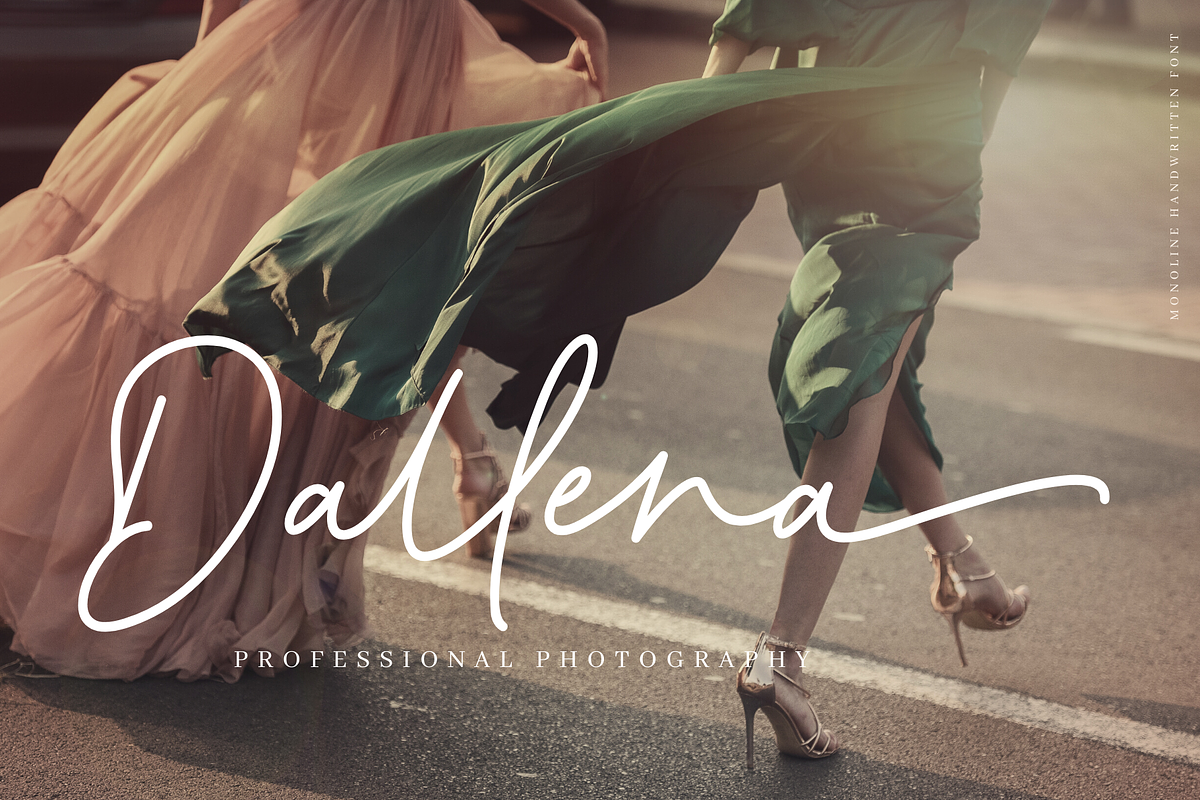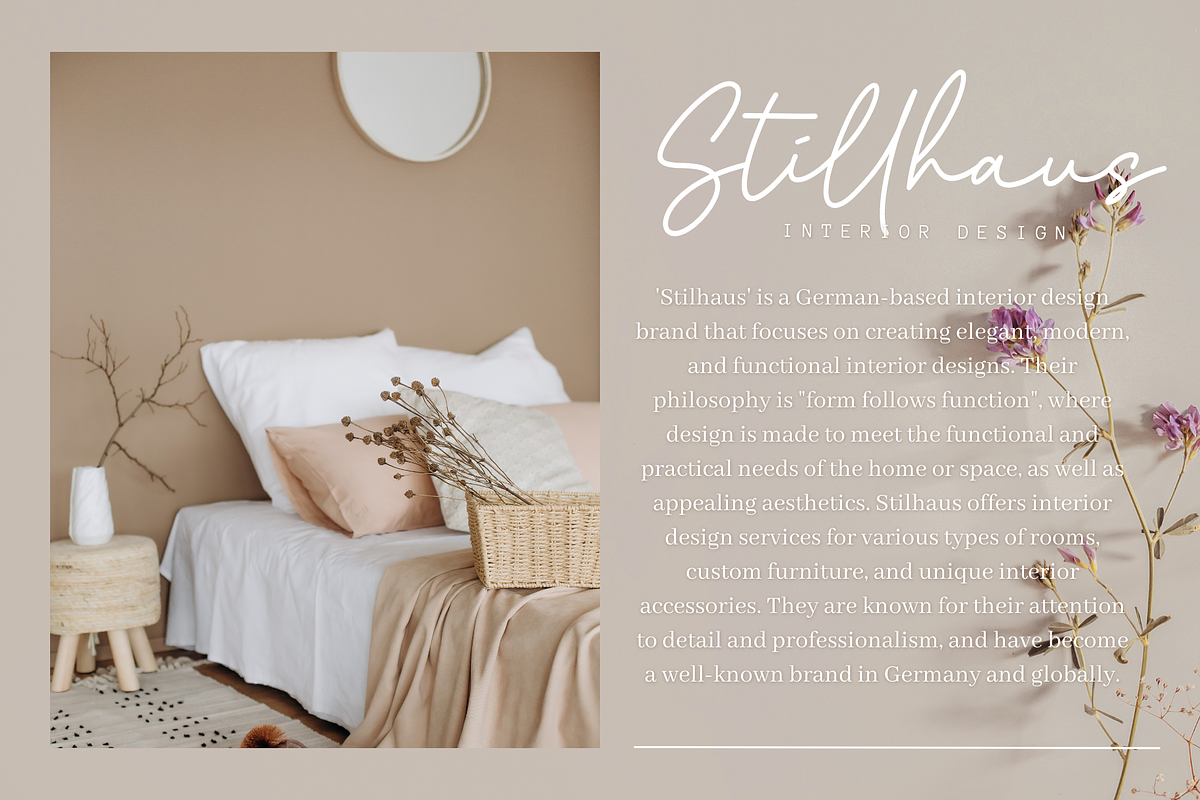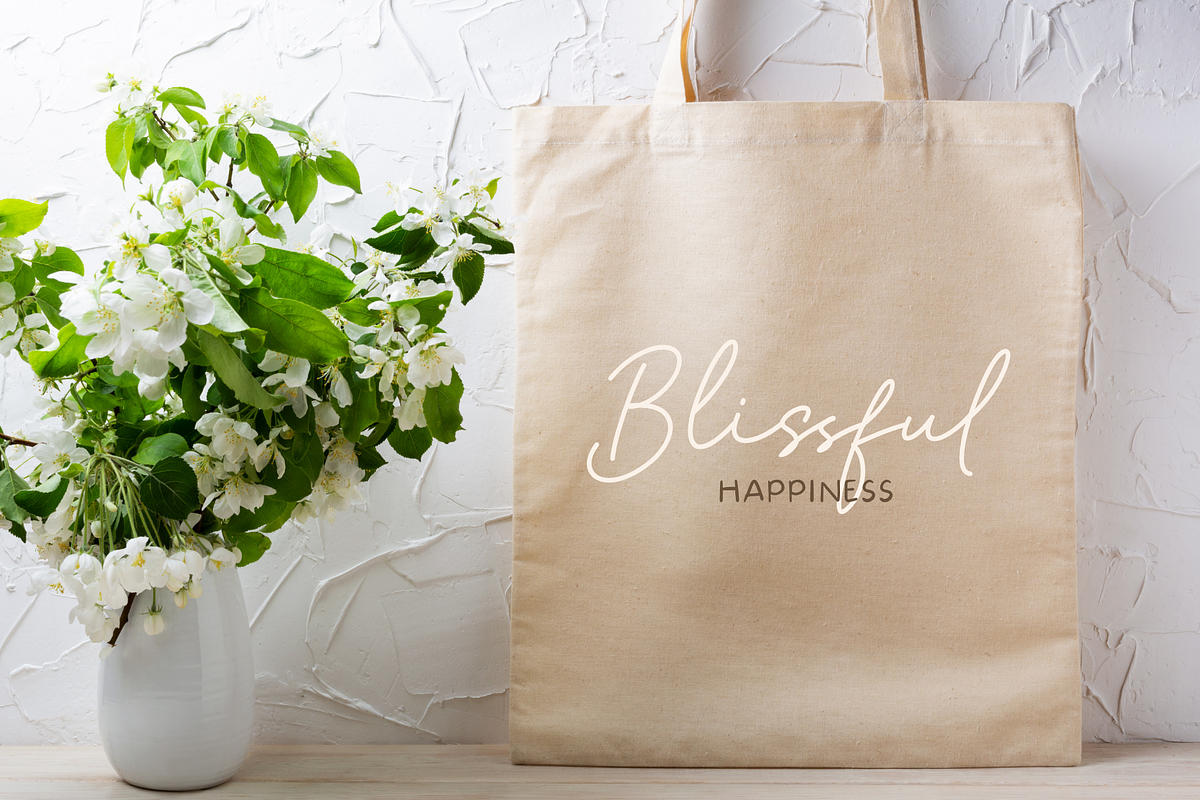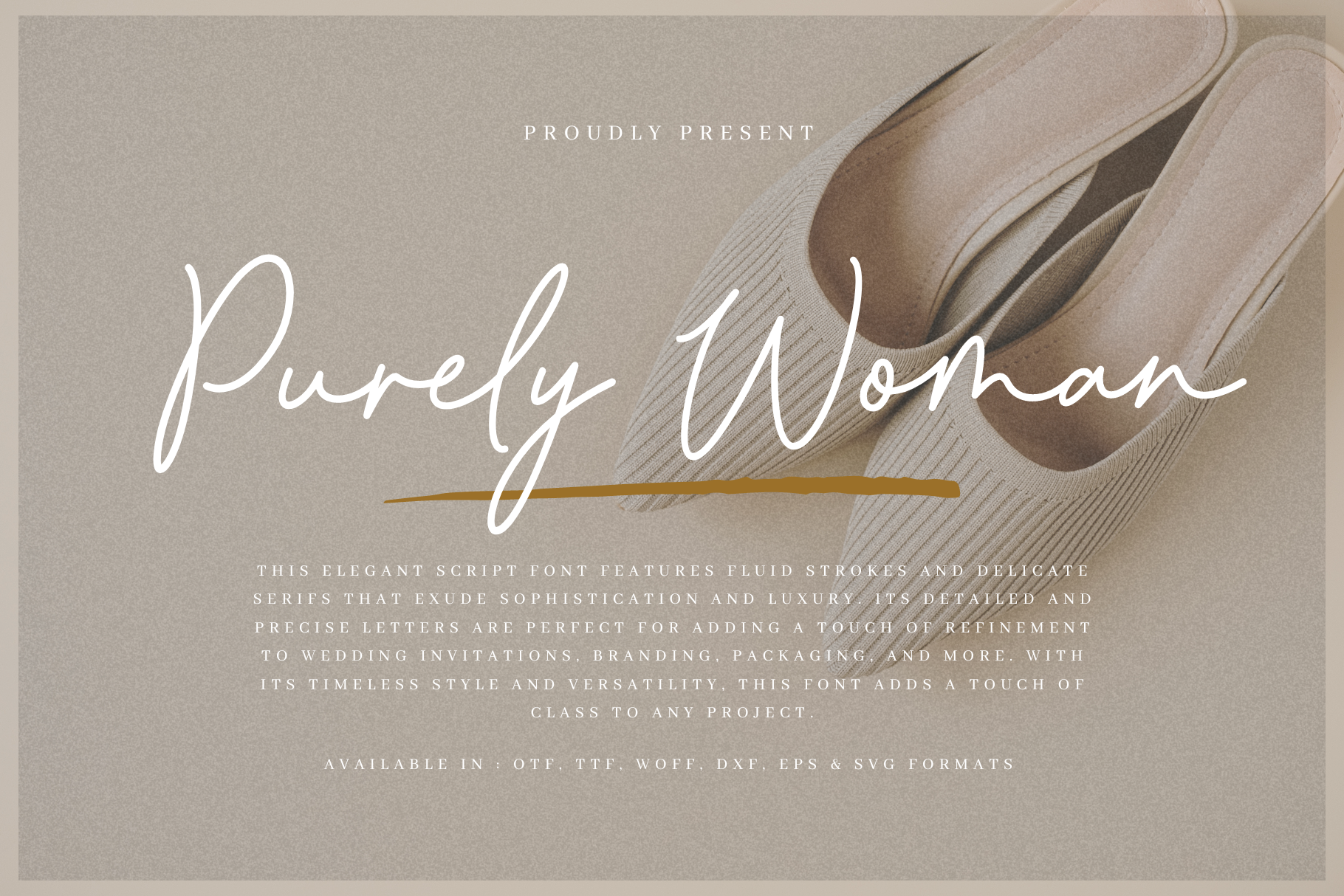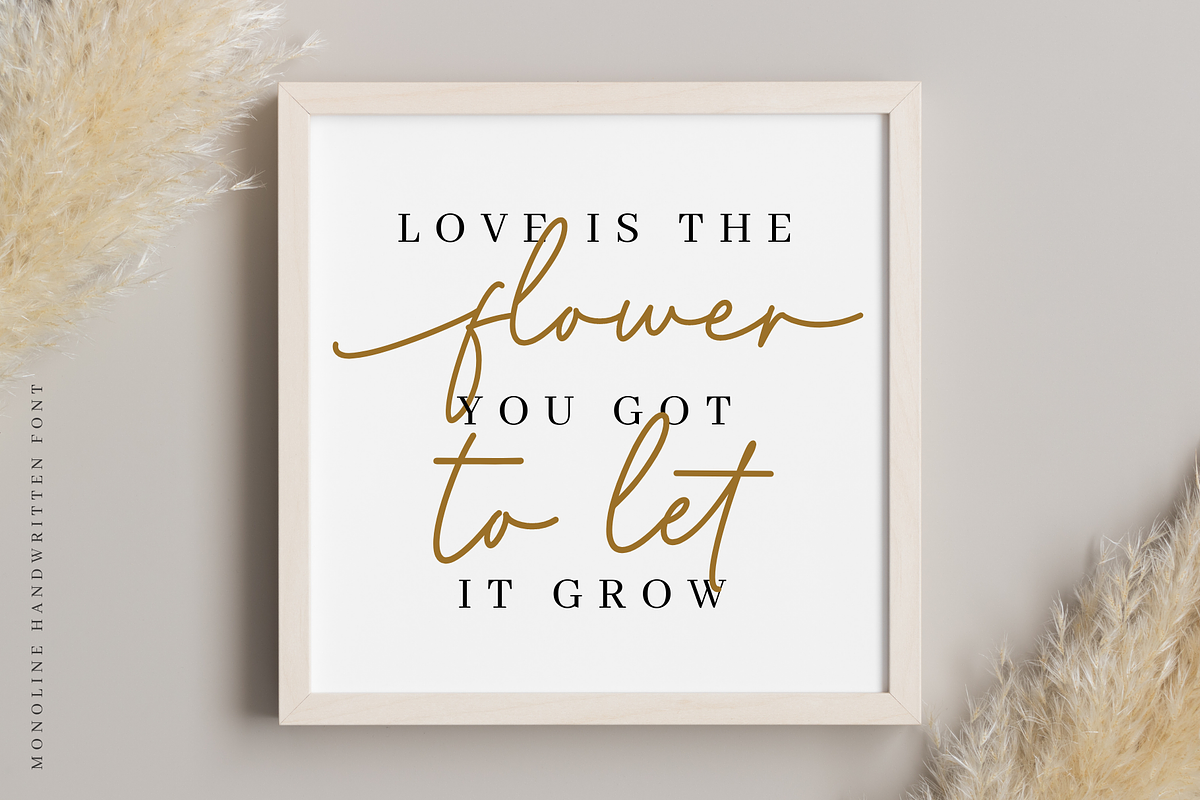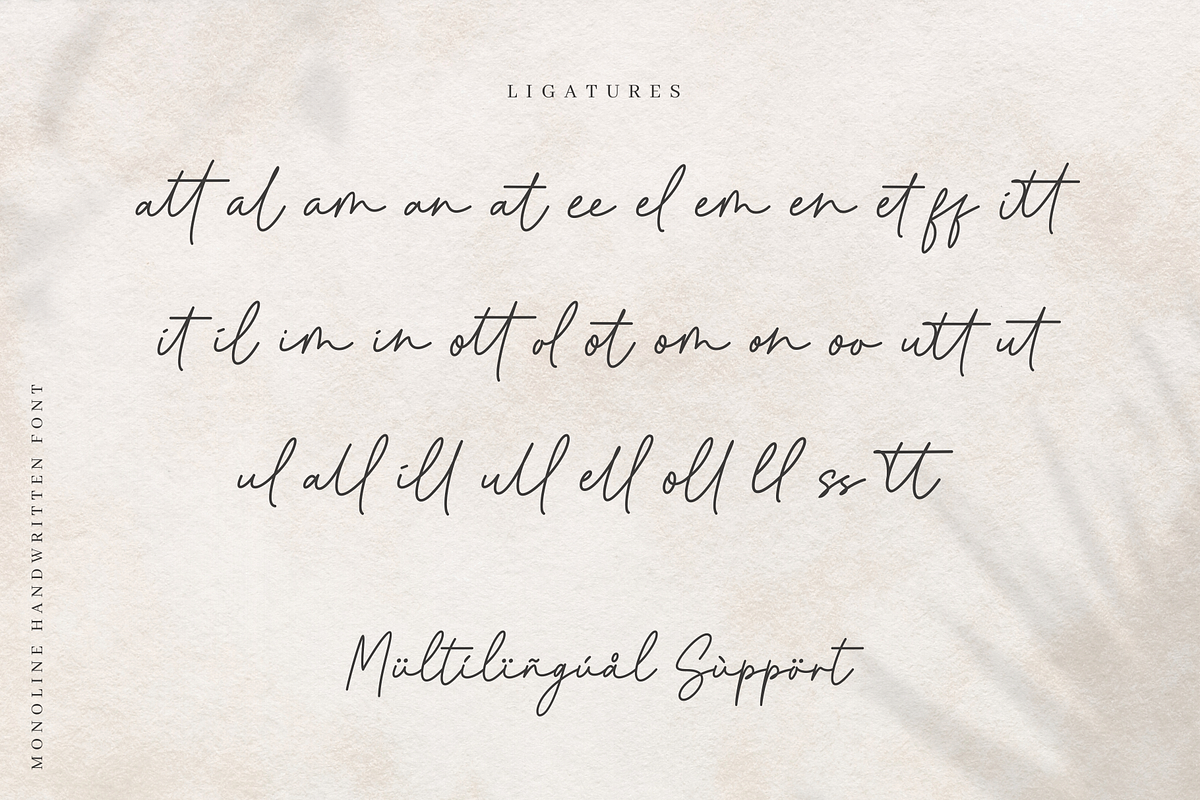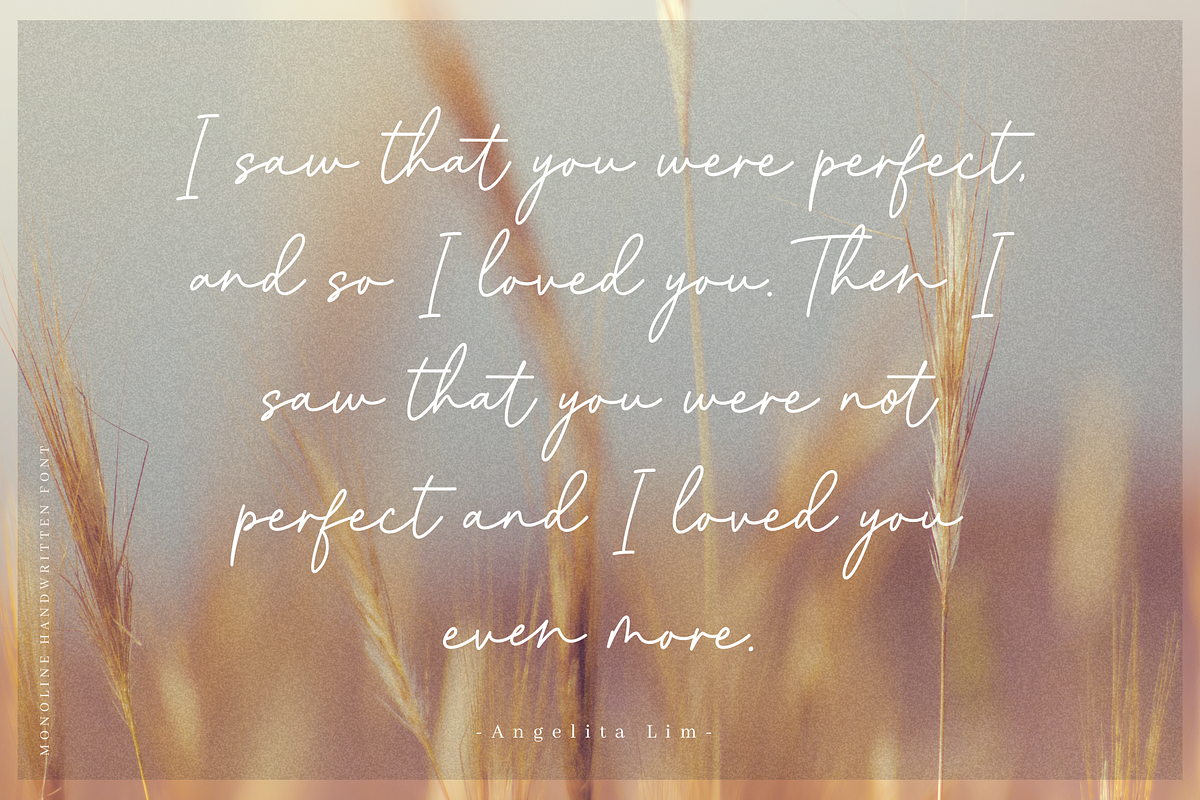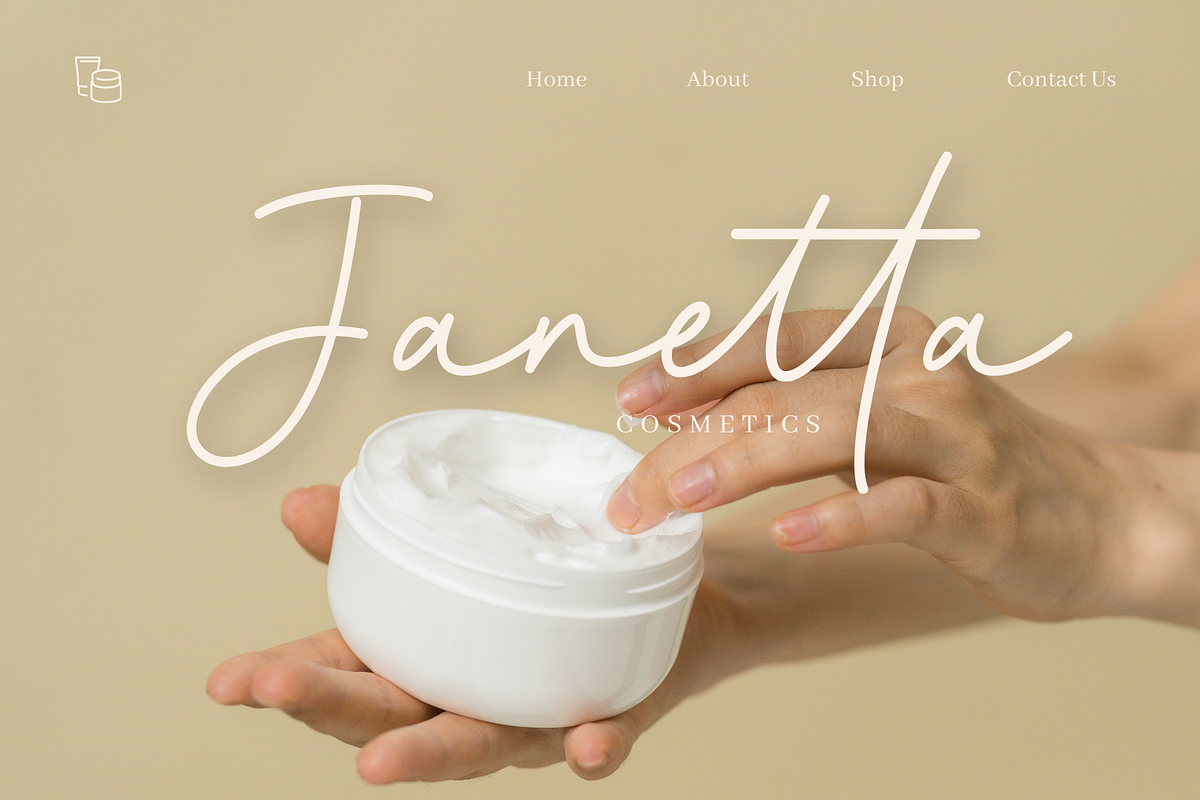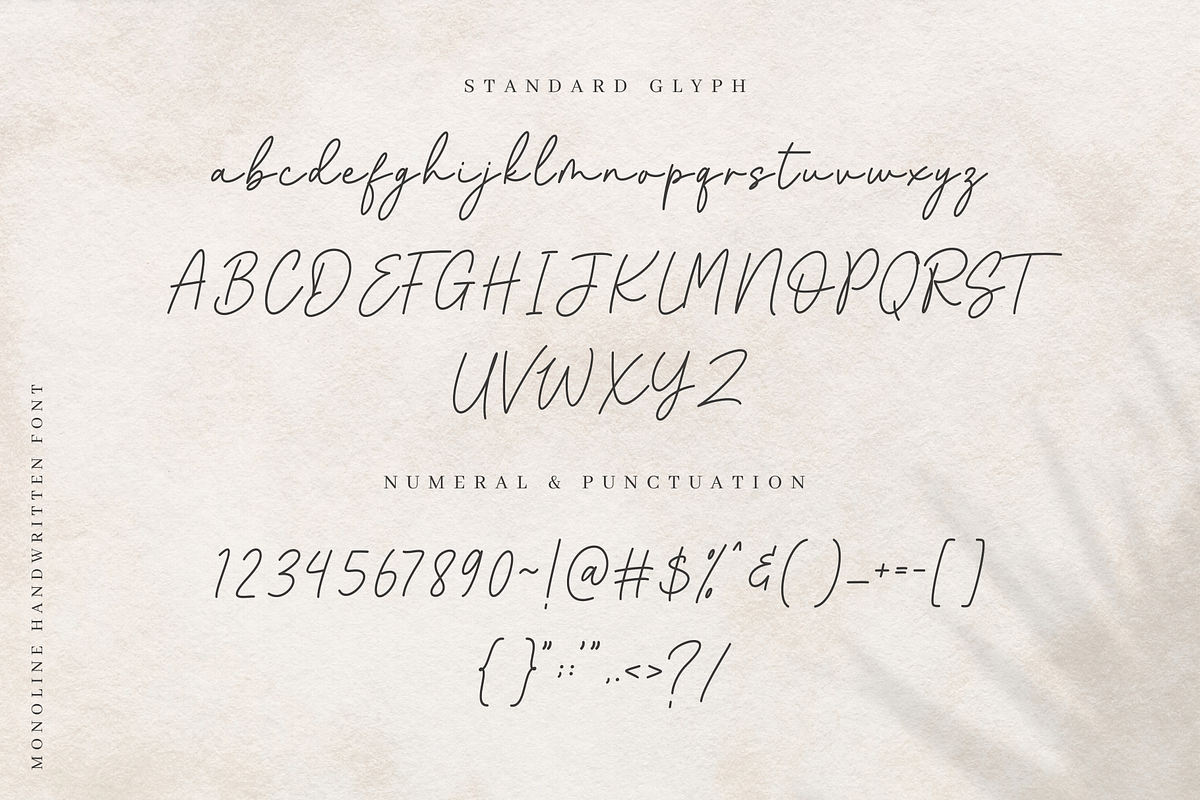
Purely Woman - Monoline Font
This elegant script font features fluid strokes and delicate serifs that exude sophistication and luxury. Its detailed and precise letters are perfect for adding a touch of refinement to wedding invitations, branding, packaging, and more. With its timeless style and versatility, this font adds a touch of class to any project.
- Uppercase and lowercase letters
- Multilingual, numerals, and punctuation